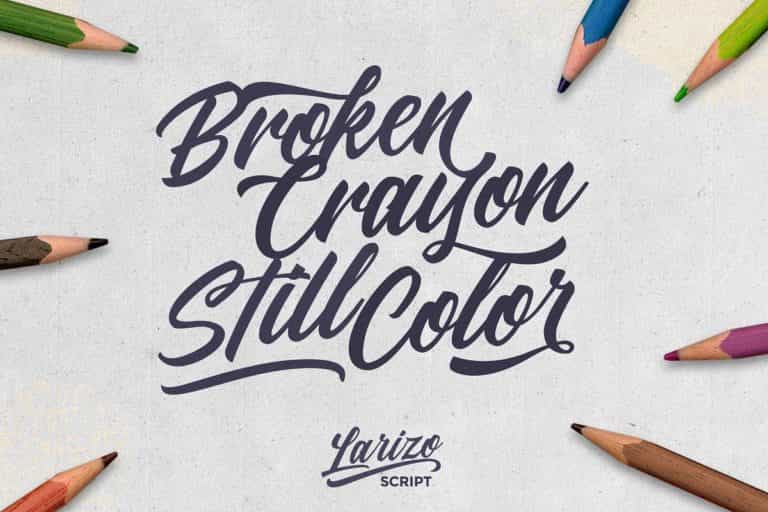
Introducing Larizo Font. Larizo – The most unique handmade lettering which turned into a font!It is great to use for logotype, wordmark, badge, sign board, poster, headline text, apparel, wedding invitation, etc. It has lots of opentype features like ligature, stylistic alternate, contextual alternate, swash, etc and support multi language.